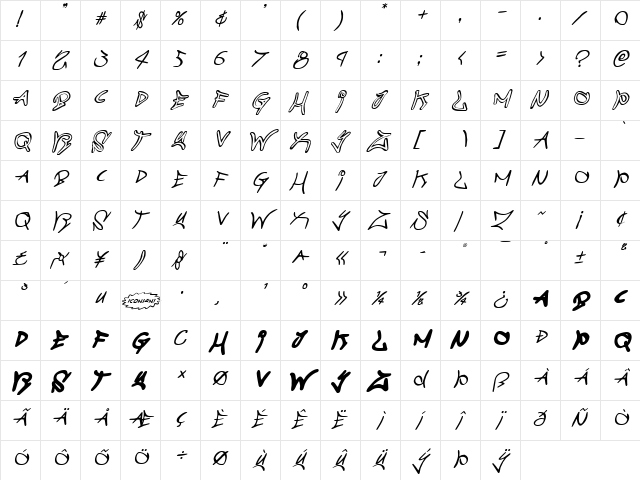
Graffiti Street Compact Italic Italic
Design Context for Graffiti Street Compact Italic Typeface
Graffiti Street Compact Italic is a composed and adaptable typeface that performs quietly and consistently across a wide range of design contexts. The slanted form adds forward momentum and visual energy. The condensed width makes it efficient for tight spaces without sacrificing legibility.
Pro Tip: Use Graffiti Street Compact Italic for emphasis, pull quotes, and subheadings where its slanted energy can add rhythm to the layout.